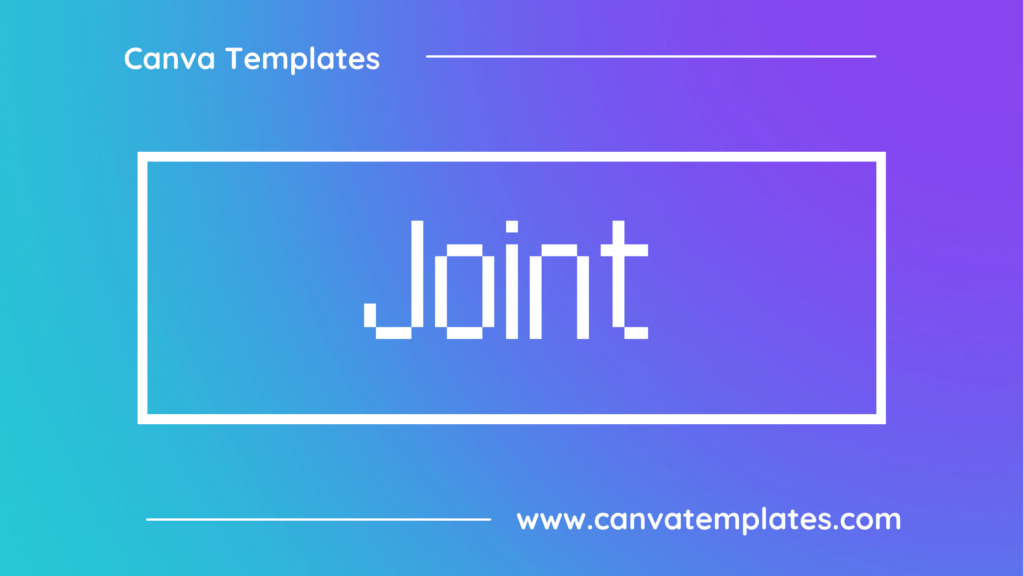
Great graphic design is powered by great font selection. But picking great fonts is a challenge most people. Luckily, Canva has made adding great fonts to your designs much easier. In this tutorial, our team of design experts will cover the best pixel fonts in Canva.
What is a Pixel Font?
Pixel fonts, also known as bitmap fonts, typically share the following characteristics:
- Pixelated appearance: Pixel fonts are designed to look pixelated, with individual pixels used to form the letterforms.
- Limited resolution: Pixel fonts have a limited resolution, which means that they are best suited to small sizes and low-resolution displays.
- Square or rectangular shapes: Pixel fonts often feature square or rectangular letterforms, with clean lines and sharp angles that give them a geometric appearance.
- Sans-serif: Most pixel fonts are sans-serif, which gives them a modern, streamlined look that is well-suited to contemporary design.
- High legibility: Pixel fonts are typically designed to be highly legible, with clear letterforms and ample spacing between characters.
- Limited variation: Pixel fonts tend to have a limited range of variation in terms of weight and style, as they are intended to be consistent and easily recognizable across different media.
- Limited use: Pixel fonts are not typically used for body copy or large blocks of text, but rather for headings, titles, and other short bursts of text where their pixelated appearance can be fully appreciated. They are commonly used in retro video game design, digital art, and other forms of visual communication that require a bold and retro style.
Best Canva Pixel Fonts
1. Onyx
Onyx is a serif font designed by Gerry Powell and published by Monotype Imaging in 1937. It is known for its unique and distinctive diamond-shaped serifs and its elegant, classic appearance. Onyx is often used in book design and editorial work due to its legibility and readability, but it can also be used for headings and other design elements.
2. Basis33
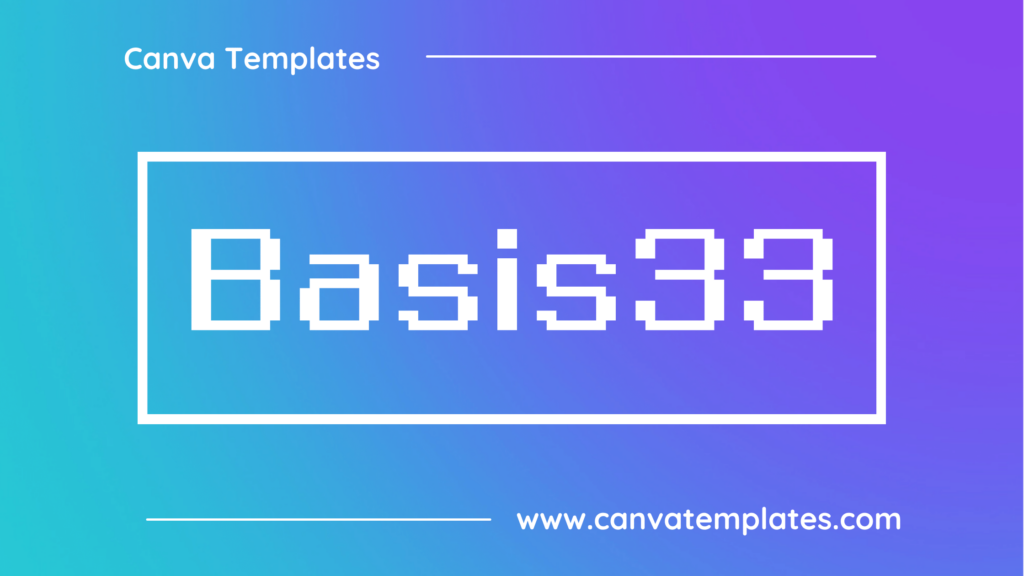
Basis33 is a geometric sans-serif typeface designed by Dutch type designer, Peter Verheul. It features clean lines and sharp angles, and was originally designed as a display font for posters and signage. Its contemporary design makes it a versatile choice for a wide range of graphic design projects.
3. Megapixel
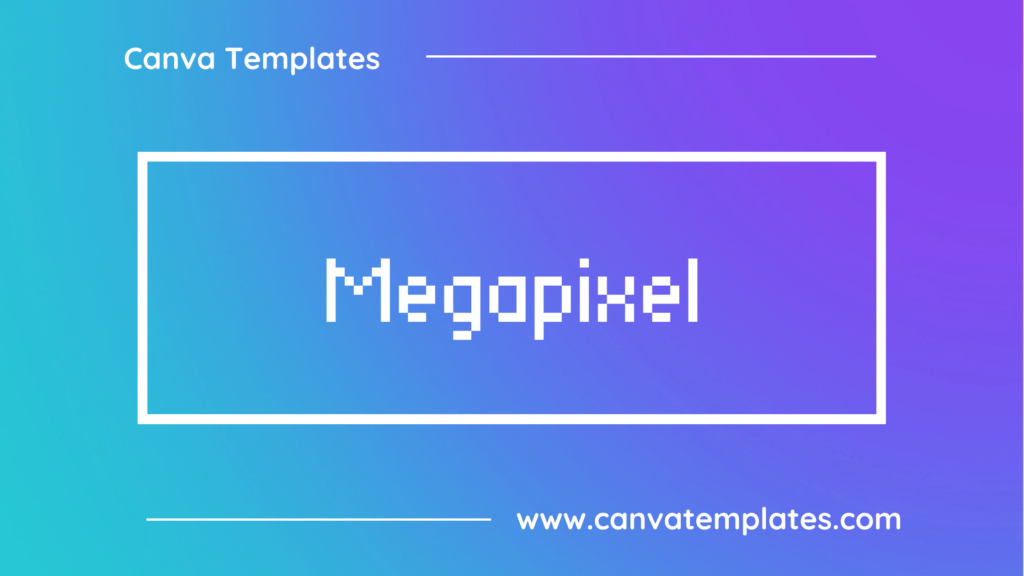
Megapixel is a pixelated font that is designed to give a retro gaming feel. It features clean and sharp lines, and it’s perfect for use in arcade games, digital art, and other projects that require a pixelated look. The font is available in uppercase and lowercase letters, numbers, and basic punctuation.
4. Point
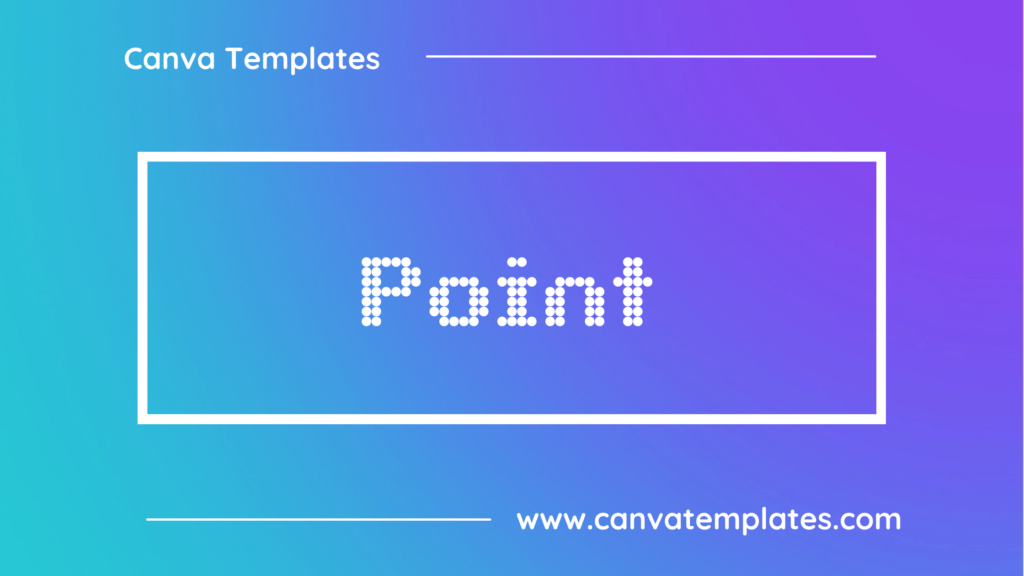
Point is a pixelated font designed to look like characters from retro video games. It features a square, grid-like design with each character consisting of a series of pixels arranged in a specific pattern. It has a distinctive, nostalgic appearance and is often used in designs and projects that aim to evoke a sense of retro gaming culture.
5. Arcade Gamer
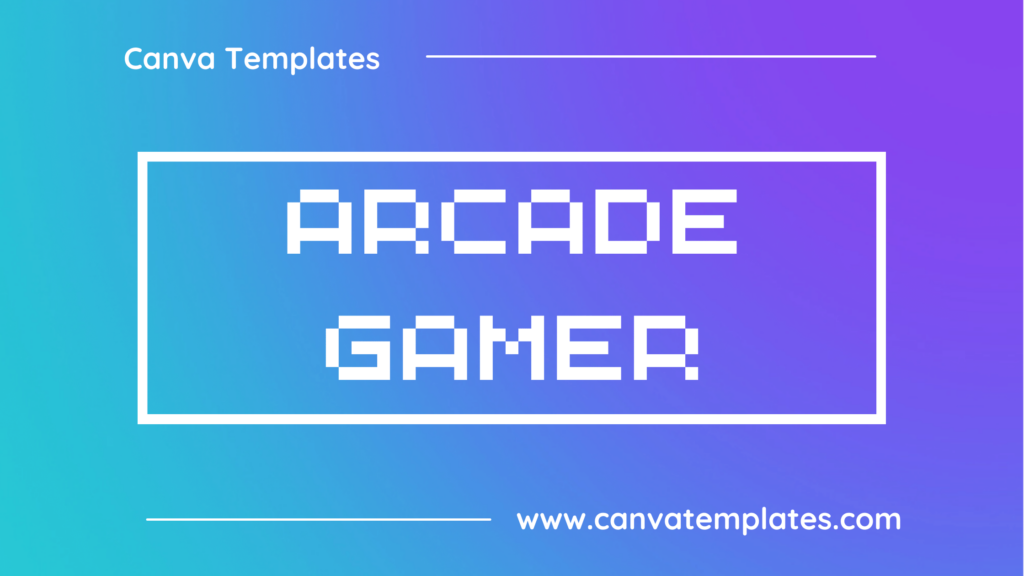
Arcade Gamer is a pixelated font that is commonly associated with retro video games. It features blocky characters with a distinctive 8-bit style. The font is designed to resemble the text found in classic arcade games and has a playful and nostalgic feel. It is often used in video game design, promotional materials, and other media related to retro gaming.
6. Architype Ingenieur Dot
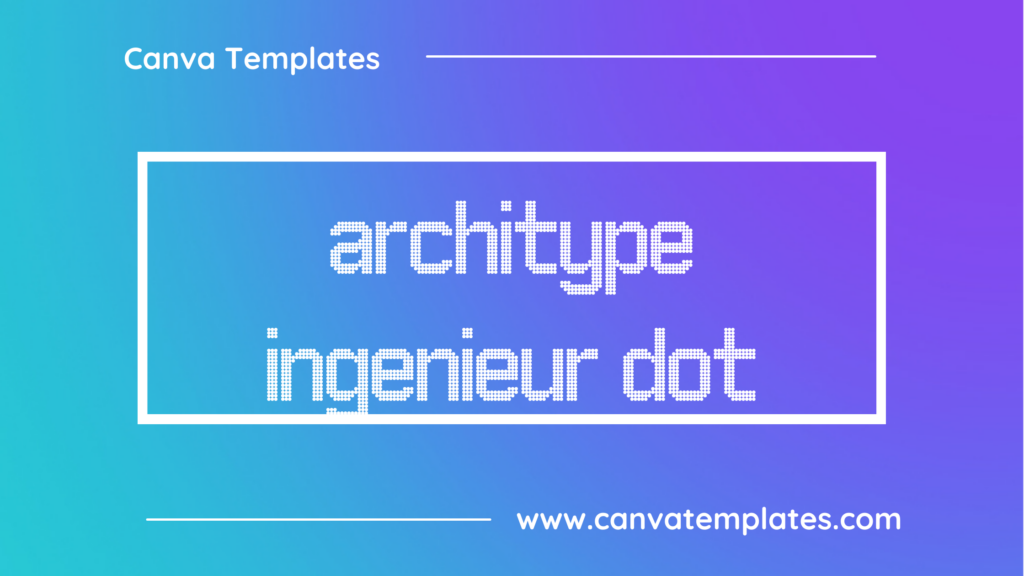
Architype Ingenieur Dot is a font that is part of a larger family of typefaces called Architype. This particular variation features a dotted pattern overlaid on top of the bold sans-serif letters, creating a unique visual effect. The font is often used for design projects that require a modern, technical, or industrial look.
7. SCR-N-Five Tight
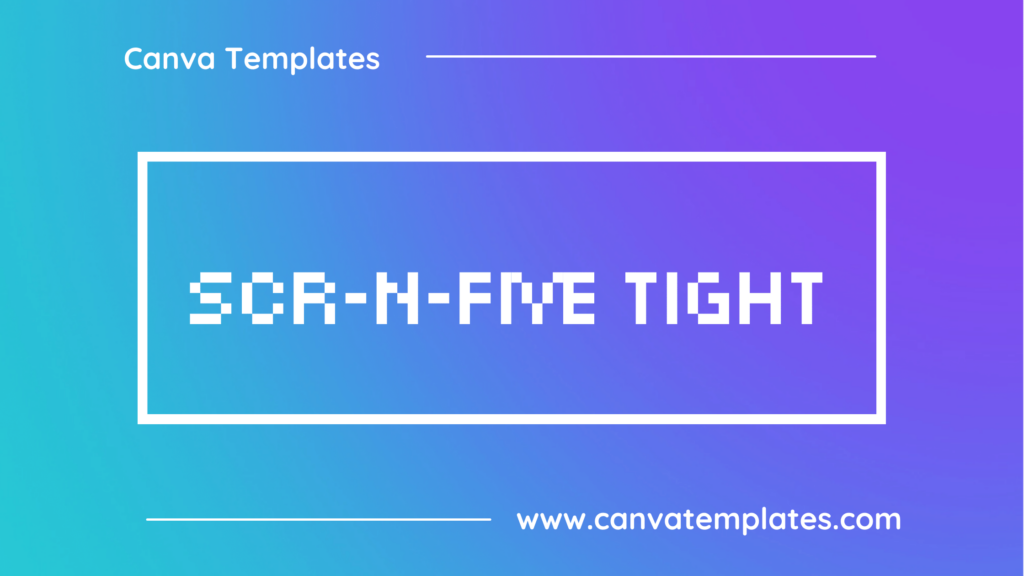
SCR-N-Five Tight is a sans-serif font with narrow proportions and a modern, technical feel. It features a geometric design with a slight squarish shape, making it suitable for designs that require a compact and sleek appearance. The font has a bold weight and sharp edges, making it ideal for titles and headlines that need to grab attention.
8. Nine by Five
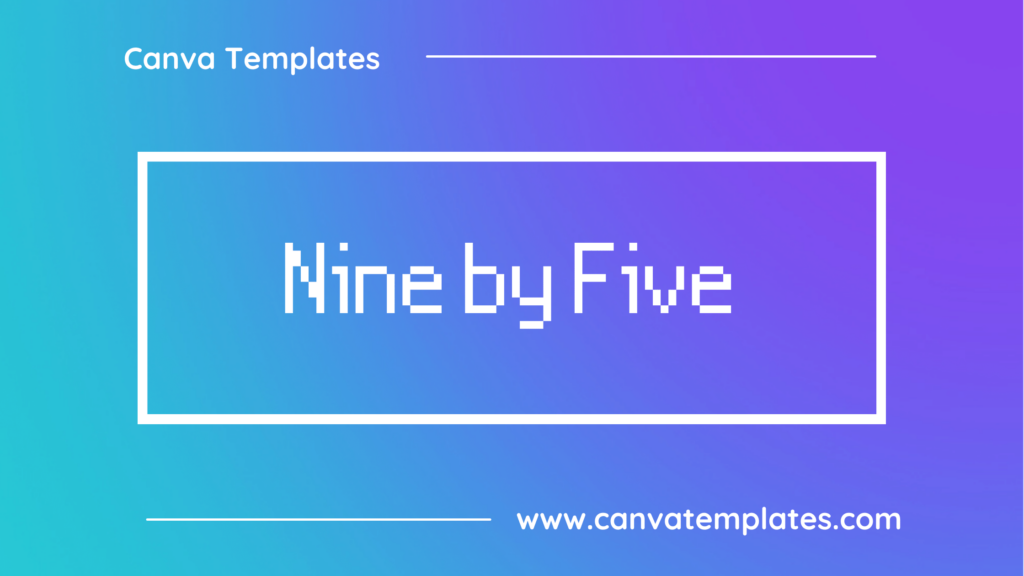
Nine by Five is a pixelated font that features blocky and rounded letters reminiscent of retro video games. The font has a playful and nostalgic vibe and would work well for titles or headings in designs that aim to evoke a sense of fun and simplicity. The characters have a consistent pixel width, giving the font a distinct and recognizable style. Nine by Five is available in a single weight and includes uppercase letters, lowercase letters, numbers, and some punctuation.
9. FS Gravity
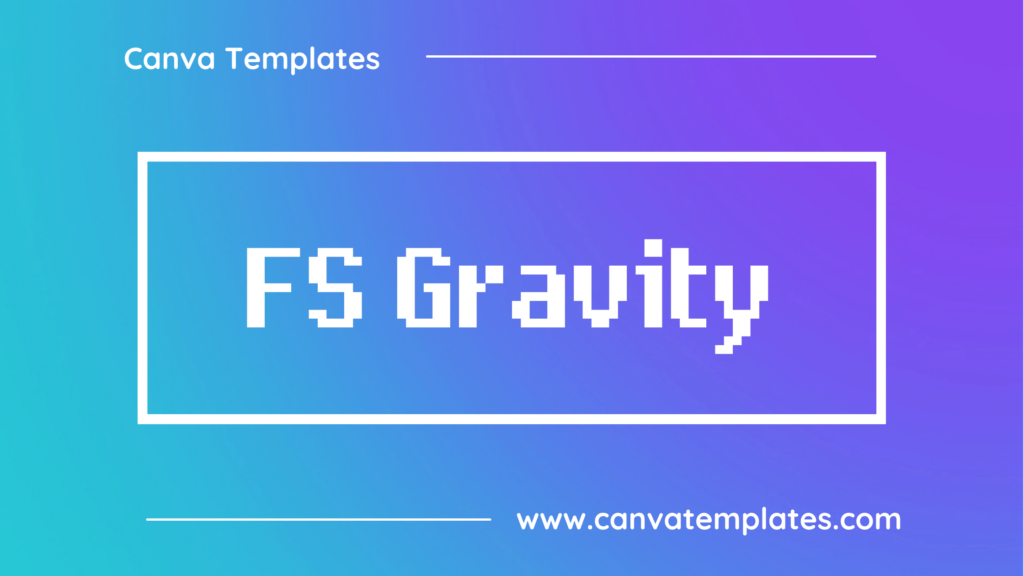
FS Gravity is a sans-serif display font designed by British typeface designer, Phil Garnham, and released in 2015. The font features bold, geometric letterforms with a distinctive angled shape, giving it a strong and impactful look. FS Gravity is available in six weights and supports both Latin and Cyrillic scripts.
Conclusion